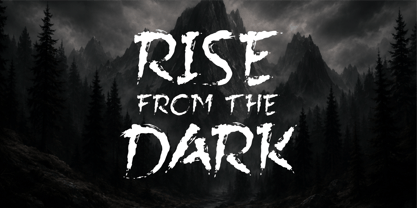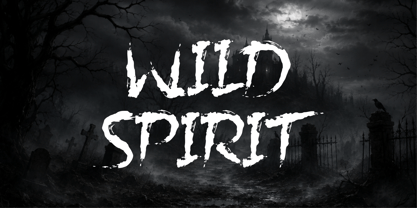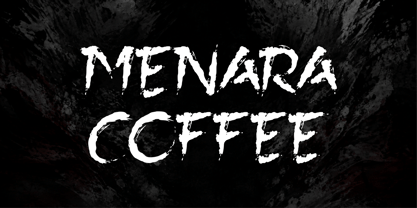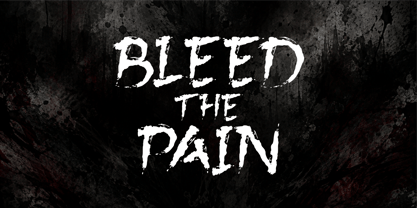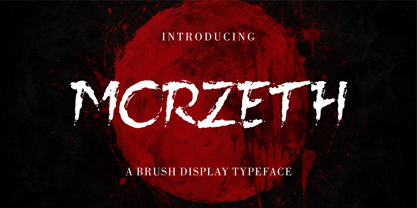
Morzeth
Morzeth – Horror Brush Display Font is a bold and expressive brush typeface designed to bring a raw, dark, and unsettling atmosphere to your designs. Its rough strokes, irregular edges, and distressed details create an intense handmade appearance that works perfectly for horror and dark-themed projects.
Morzeth is ideal for horror movie titles, thriller posters, Halloween graphics, dark merchandise, album artwork, gaming projects, book covers, logos, social media artwork, and edgy branding. Its aggressive brush character makes every word stand out with a powerful and mysterious visual impact.
With its gritty and dramatic personality, Morzeth is a great choice for designers looking to create artwork that feels disturbing, rebellious, raw, cinematic, and unforgettable.